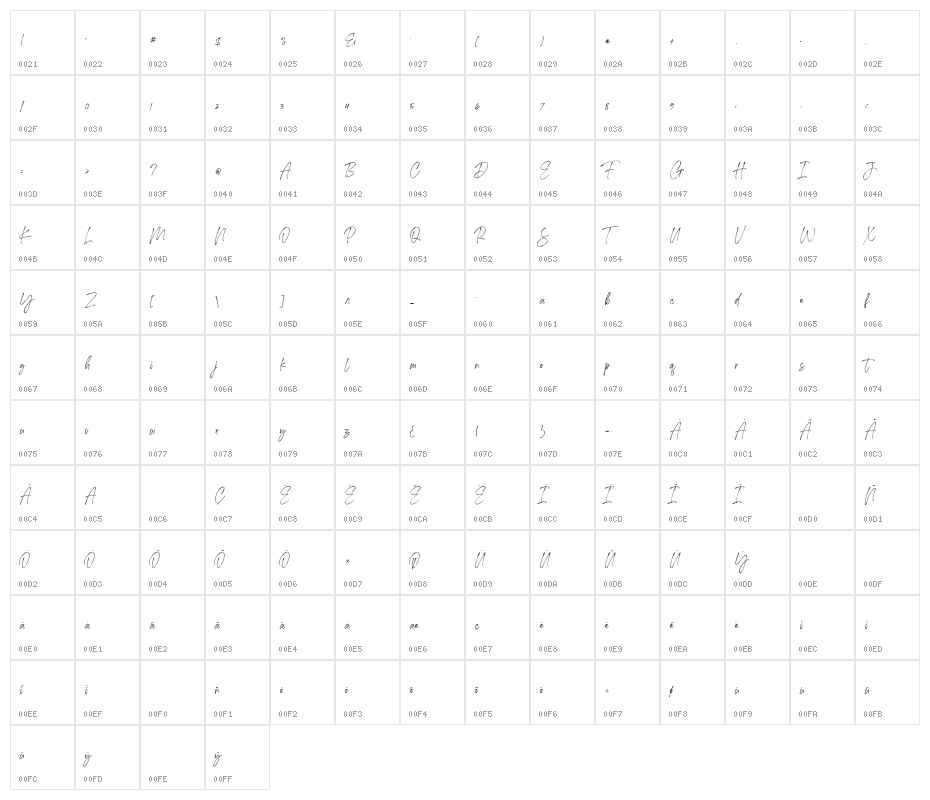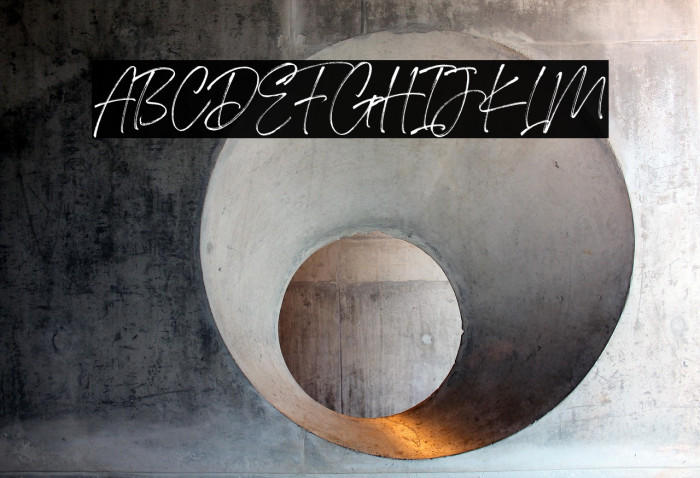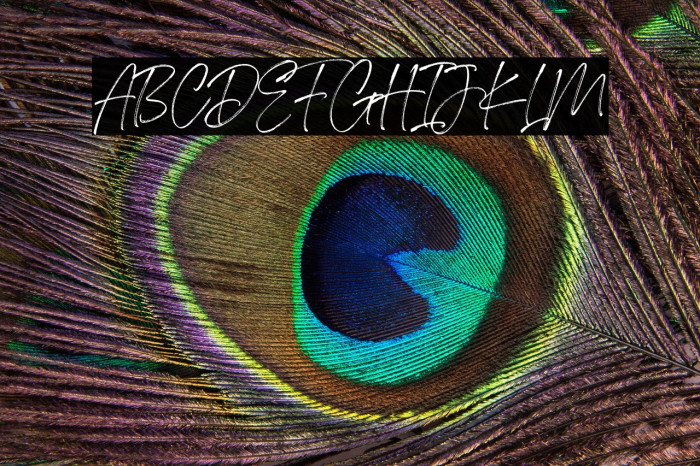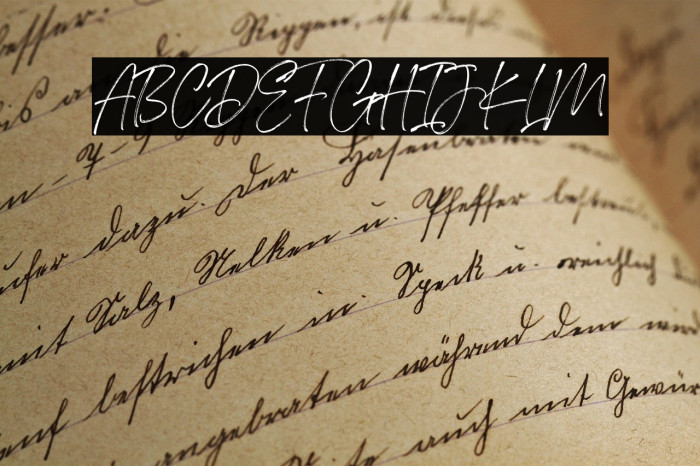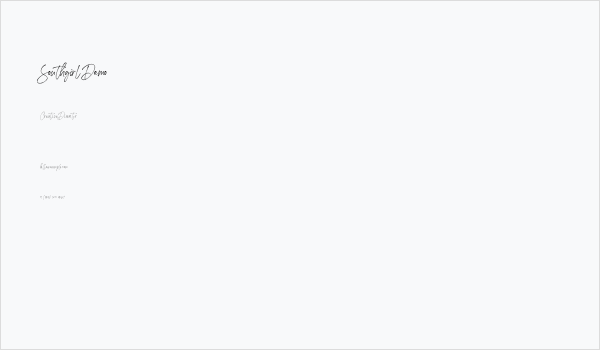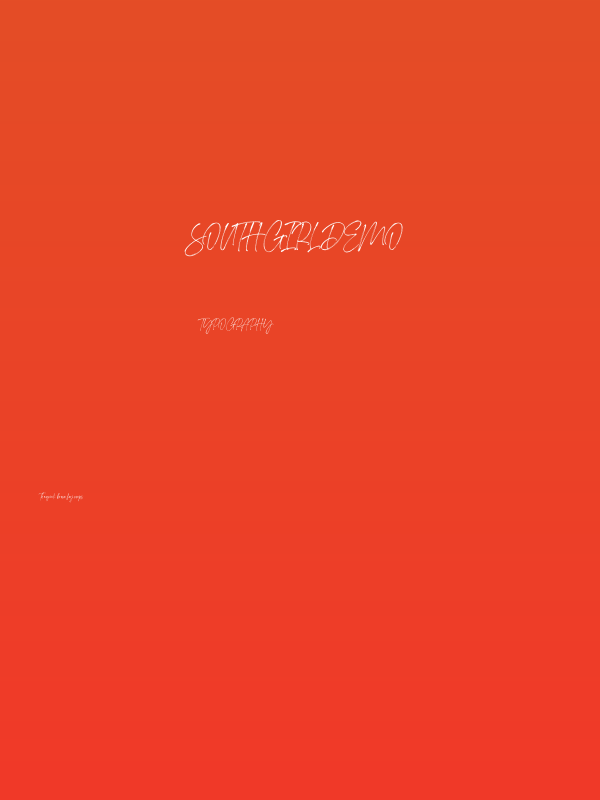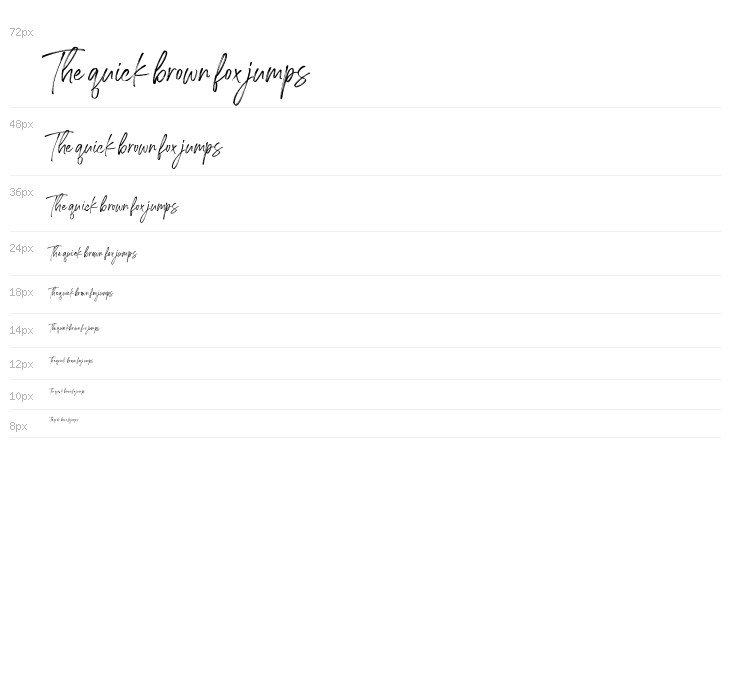
Southgirl Demo Font
Southgirl Demo Description
This font exudes a casual and elegant handwritten style, characterized by its flowing and connected letterforms. The uppercase letters are bold and expressive, with a slight slant that adds a dynamic feel. The lowercase letters maintain a consistent rhythm, enhancing readability while preserving the handwritten charm. Numbers and special characters are crafted with the same attention to detail, ensuring a cohesive look across all elements. The strokes vary in thickness, providing a medium contrast that adds depth and interest to the text. This font is perfect for projects that require a personal touch, such as invitations, greeting cards, or branding materials.
Overall StyleCasual, Elegant
Use CaseInvitations, Greeting cards, Branding
Proposed ProjectsIdeal for invitations, greeting cards, branding, and personal projects.